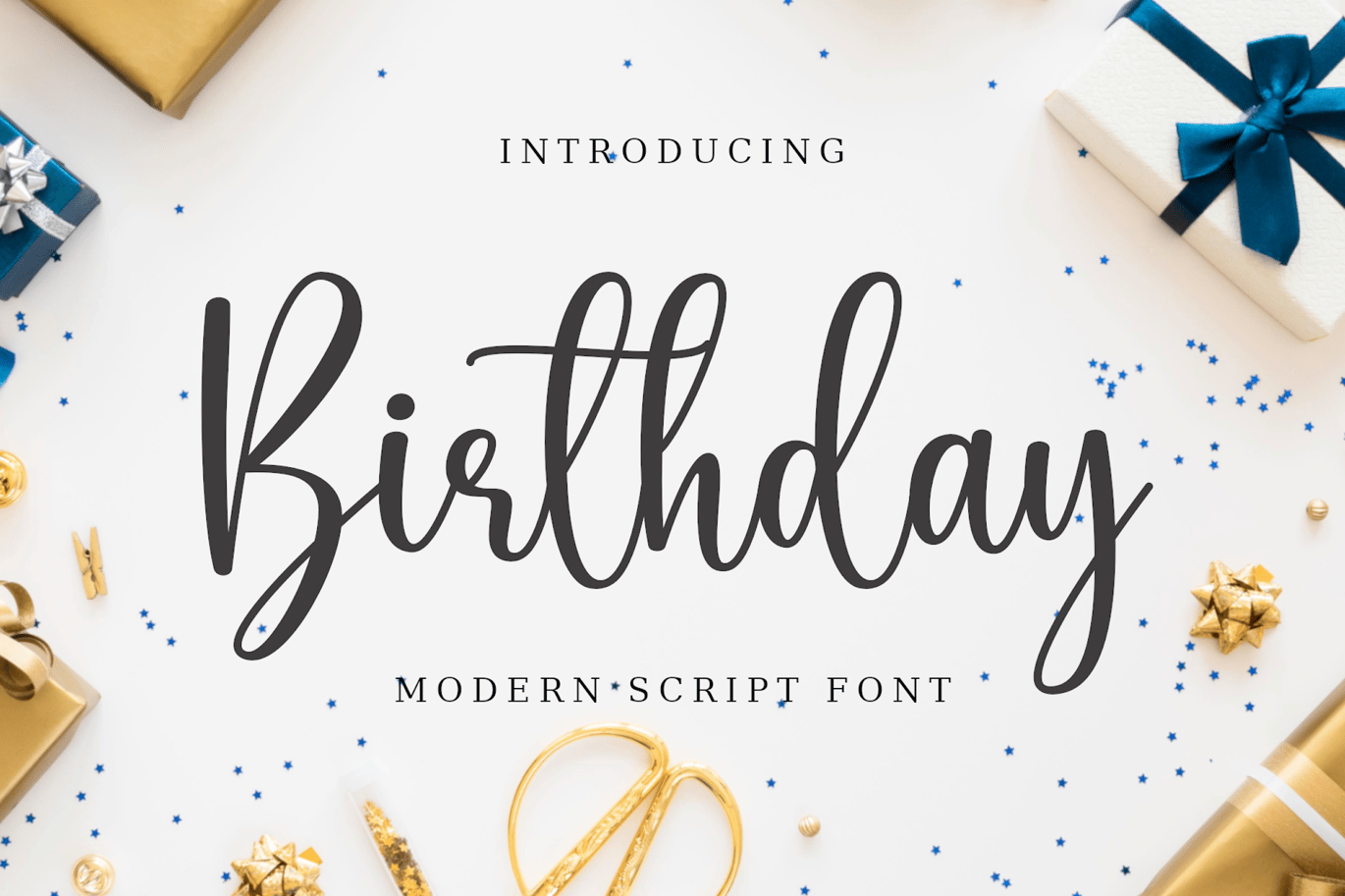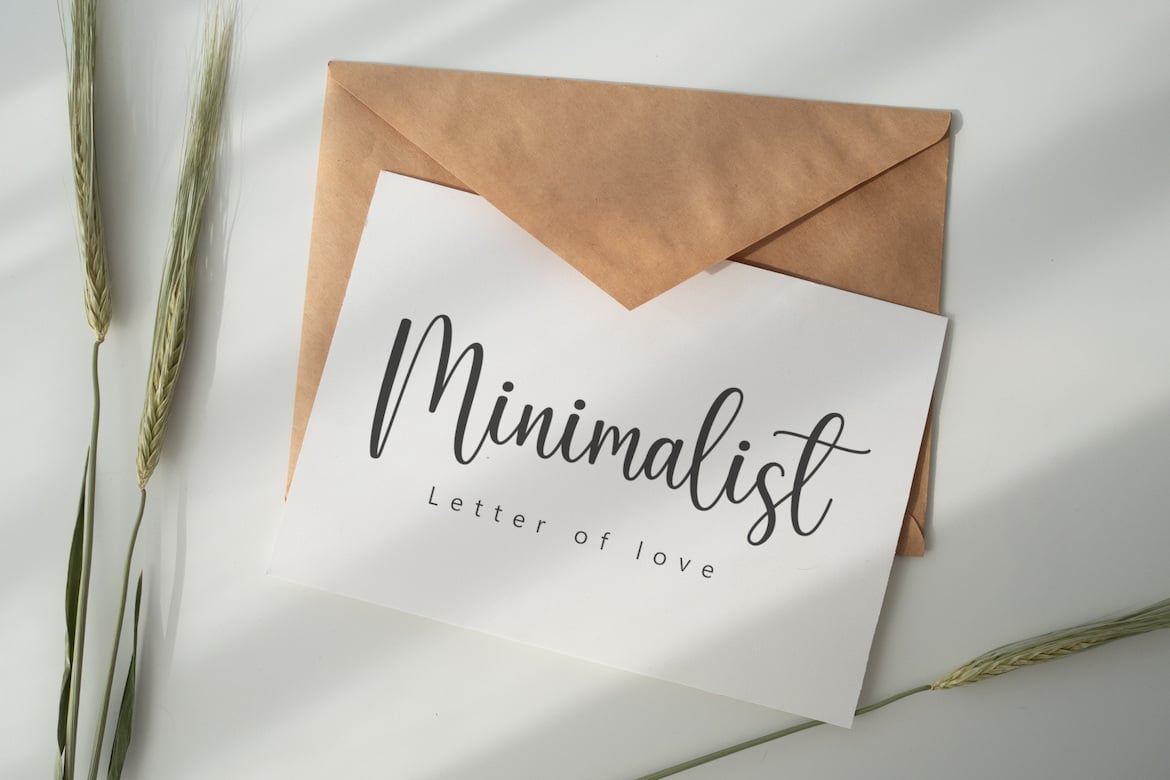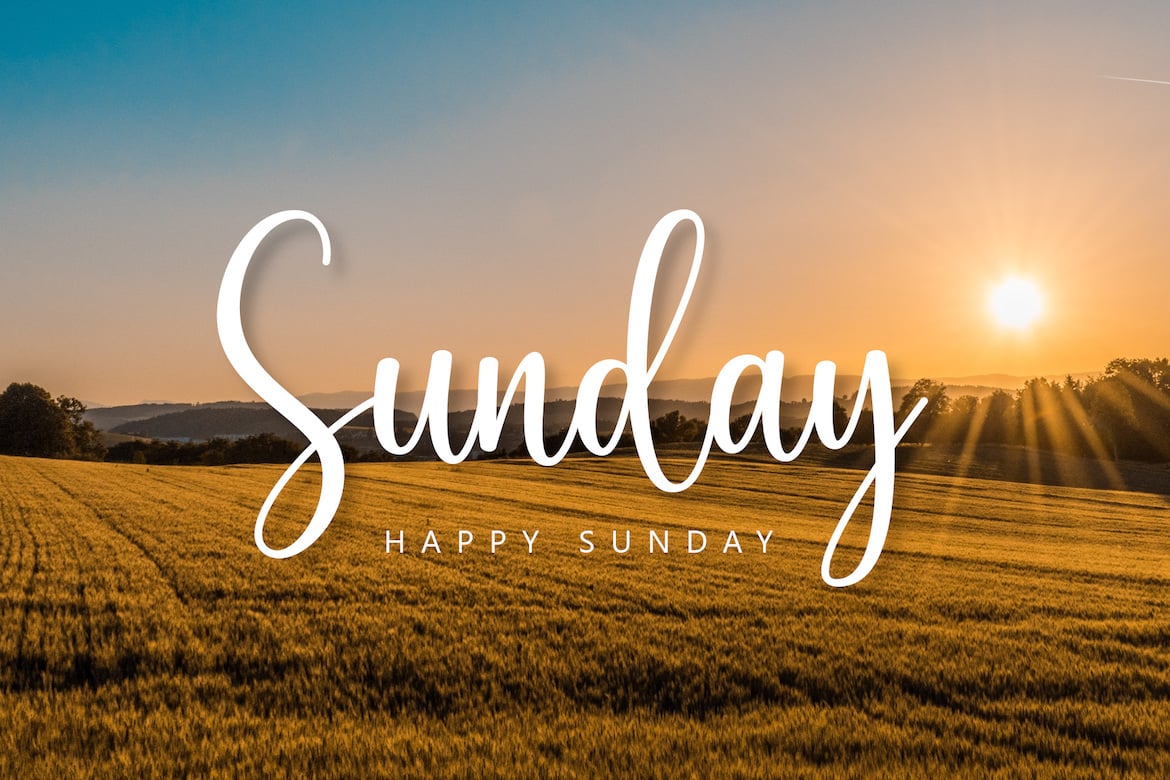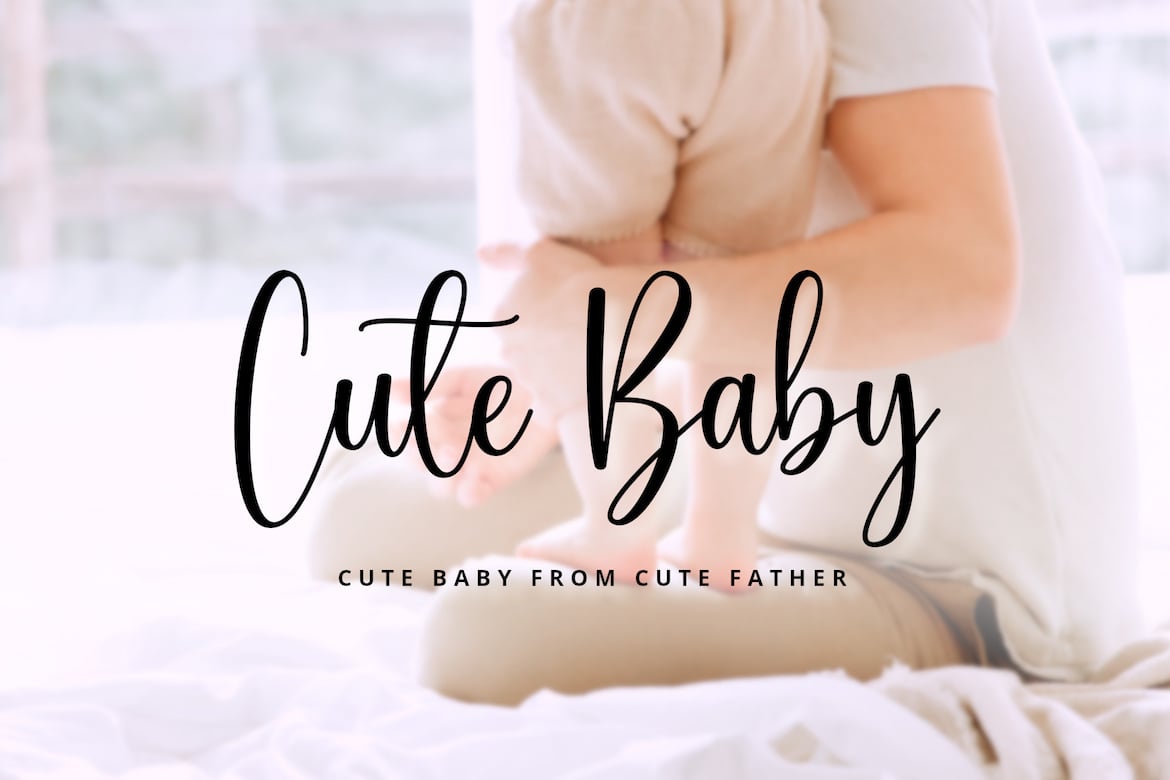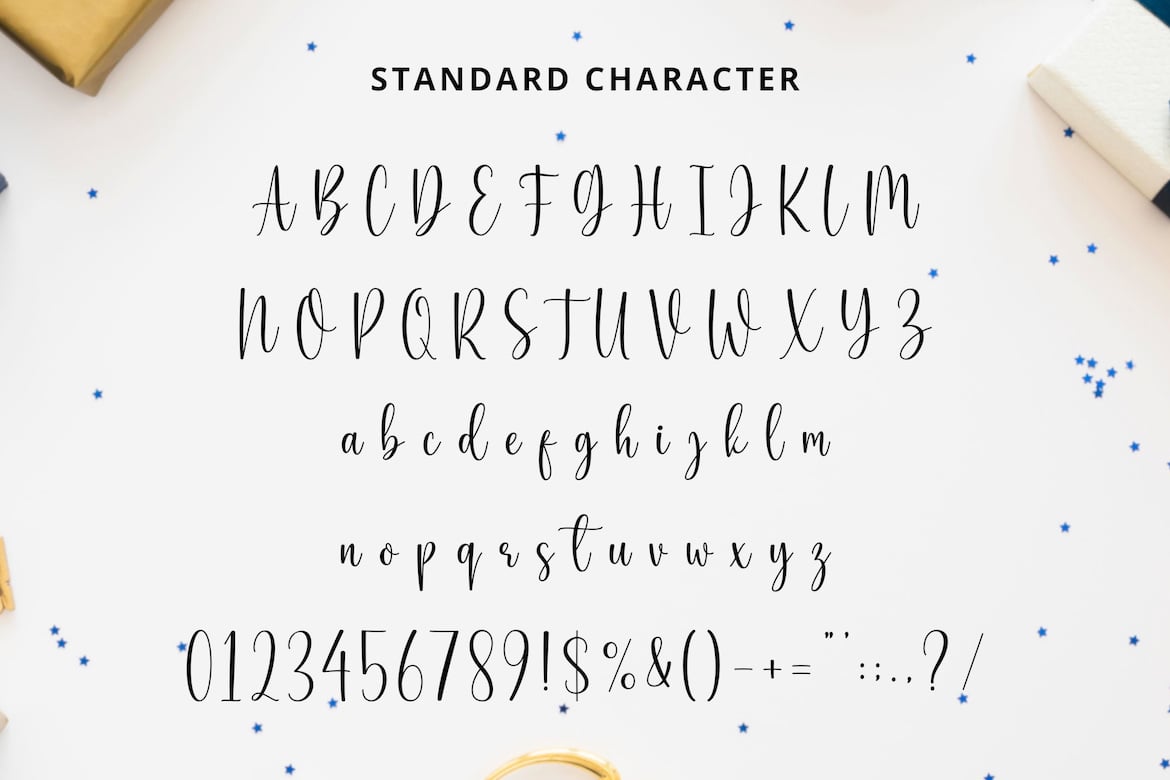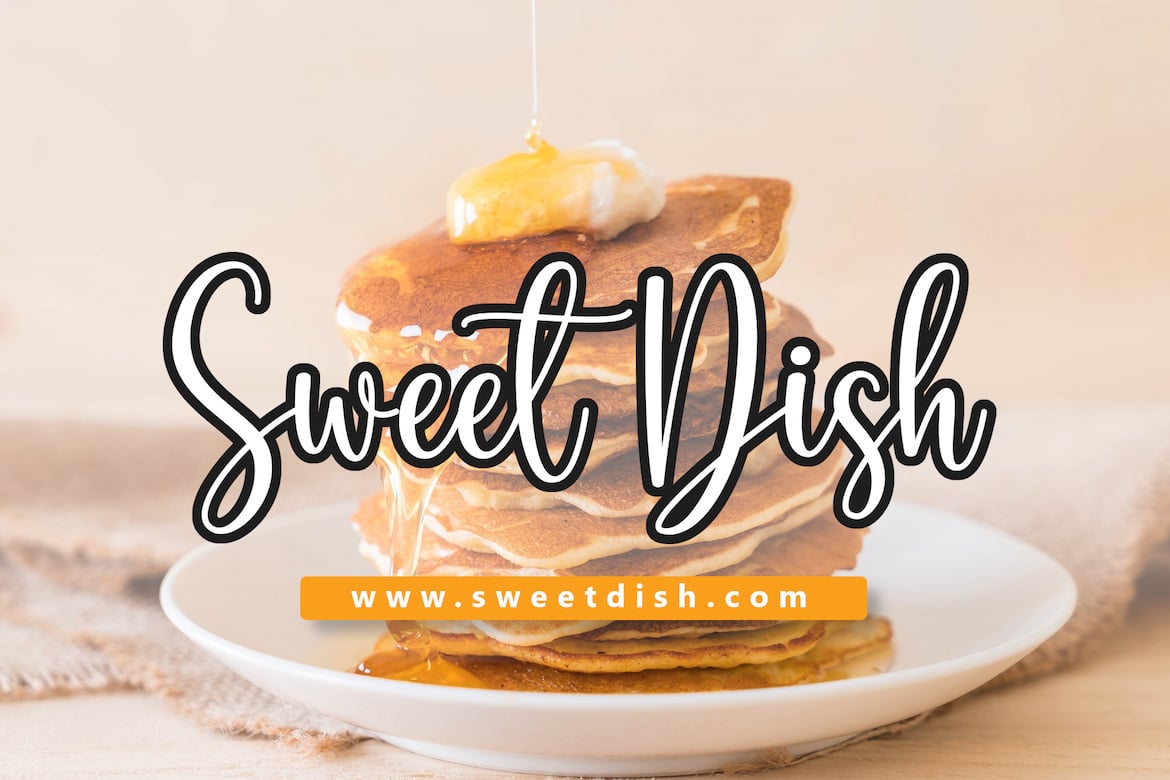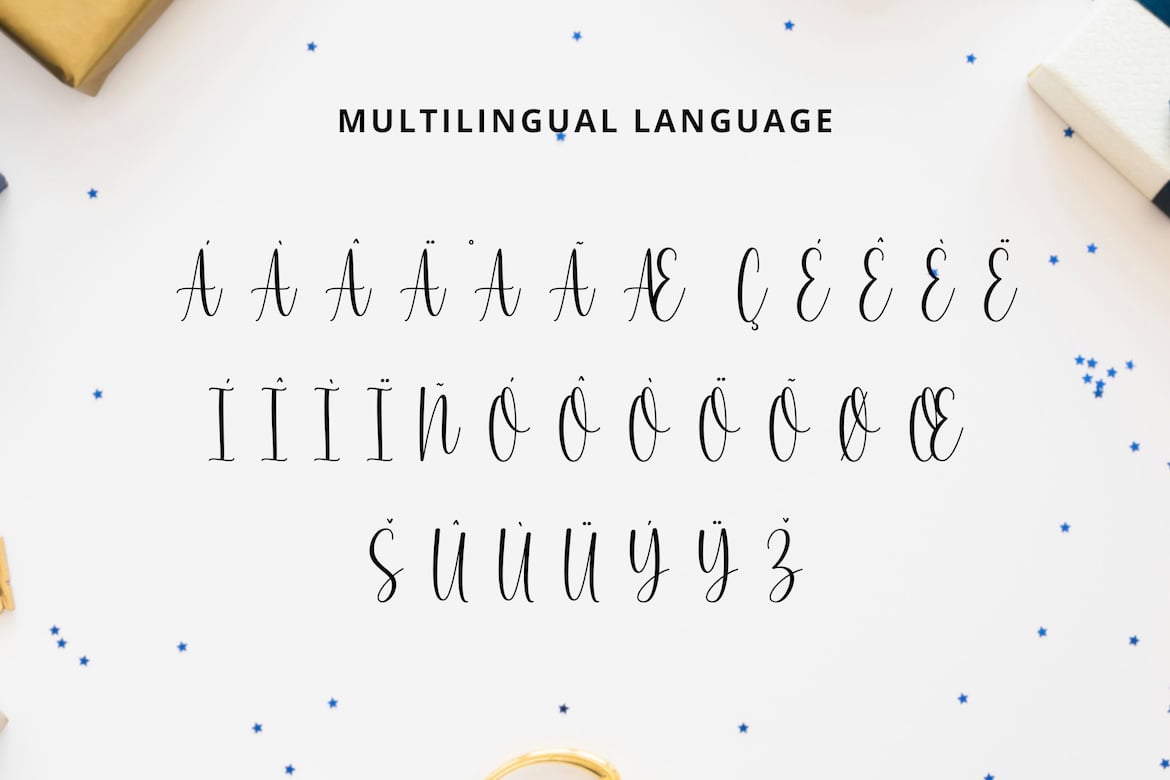
Birthday Modern Script Font
Birthday is a modern script font that boasts an elegant and natural appearance with its semi-bold strokes. Perfect for adding a touch of sophistication to your designs, Birthday is ideal for a variety of projects, including birthday posters, tote bags, mugs, ID cards, invitations, and more. Enhance your creations with the stylish and refined look of the Birthday font.
All Character:
!”$%&'()+,-./0123456789:;=?ABCDEFGHIJKLMNOPQRSTUVWXYZabcdefghijklmnopqrstuvwxyz¨°¸ÀÁÂÃÄÅÆÇÈÉÊËÌÍÎÏÑÒÓÔÕÖØÙÚÛÜÝàáâãäåæçèéêëìíîïñòóôõöøùúûüýÿˋˊˆˇ˜ŒœıŠšŽžŸ